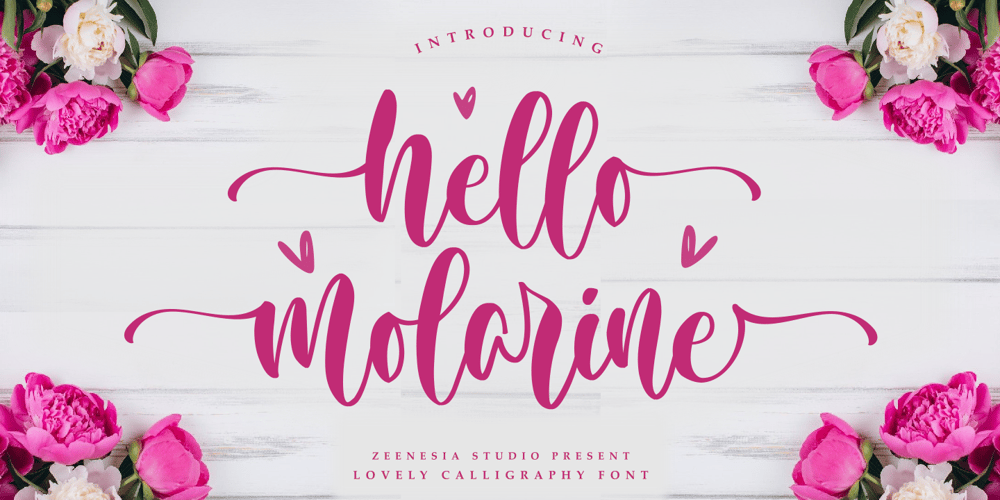
Hello Molarine
Hello Molarine font
Hello Molarine Font Family was designed by Zeenesia Studio and published by Zeenesia Studio. Hello Molarine contains 1 styles and family package options. Hello Molarine is a calligraphic script font that comes with a lovely alternative character. mix of copper calligraphy in a handlettering style. Designed to convey an elegant style. Shocking Script is attractive because it is smooth, clean, feminine, sensual, glamorous, simple and very legible. Its classic style is very suitable to be applied to all types of formal items such as invitations, labels, menus, logos, fashion, make up, stationery, letterpresses, romantic novels, magazines, books, greeting / wedding cards, packaging, labels.